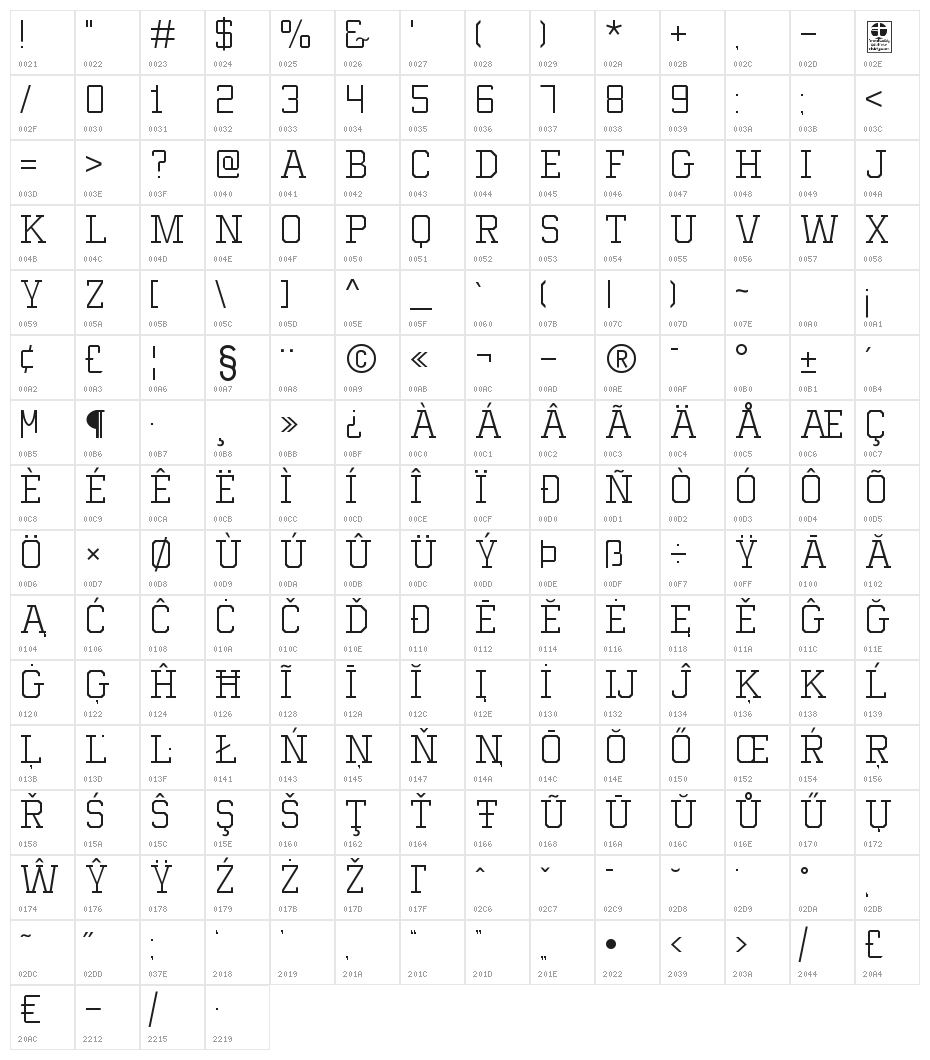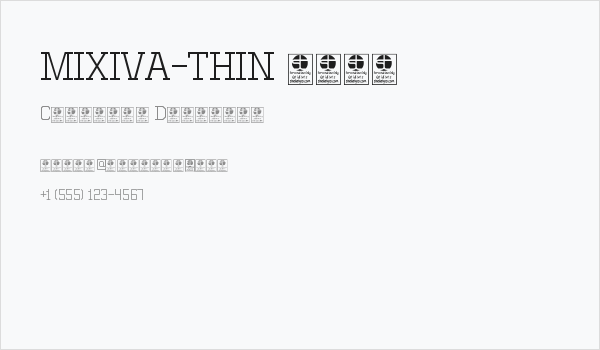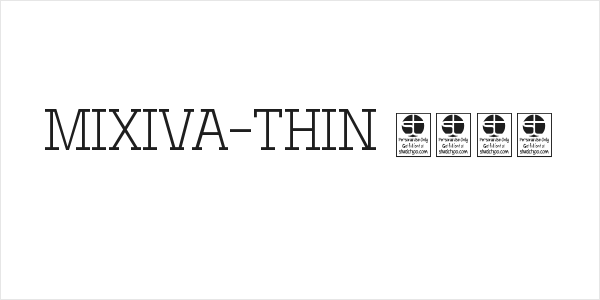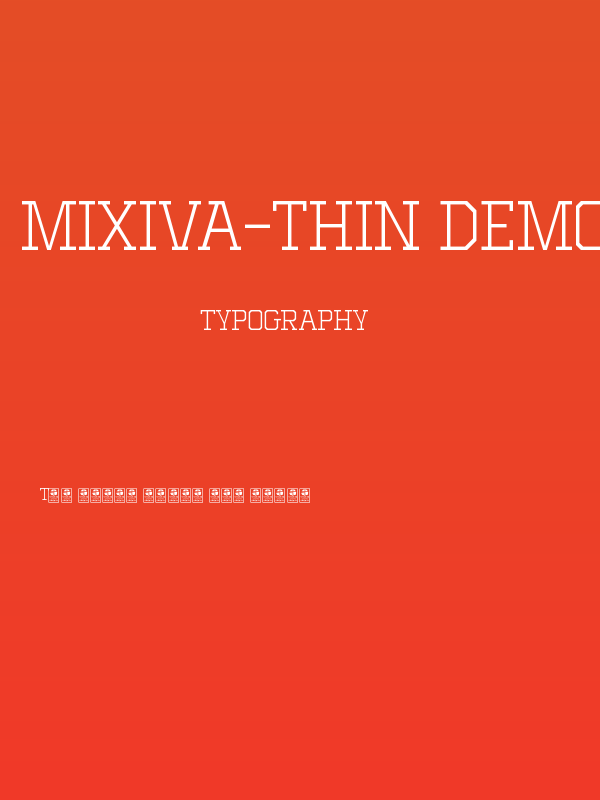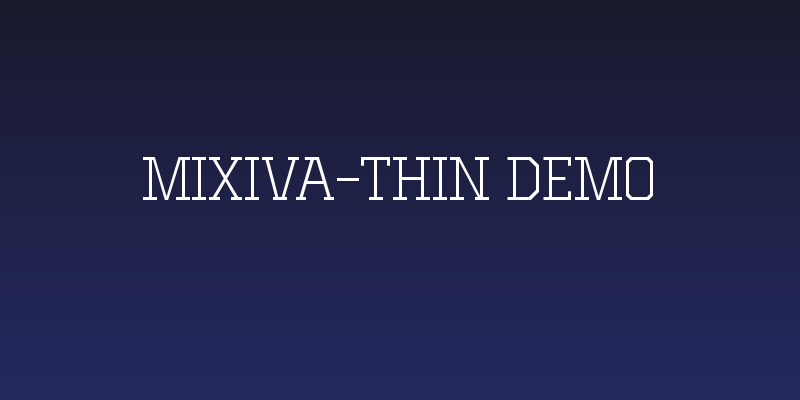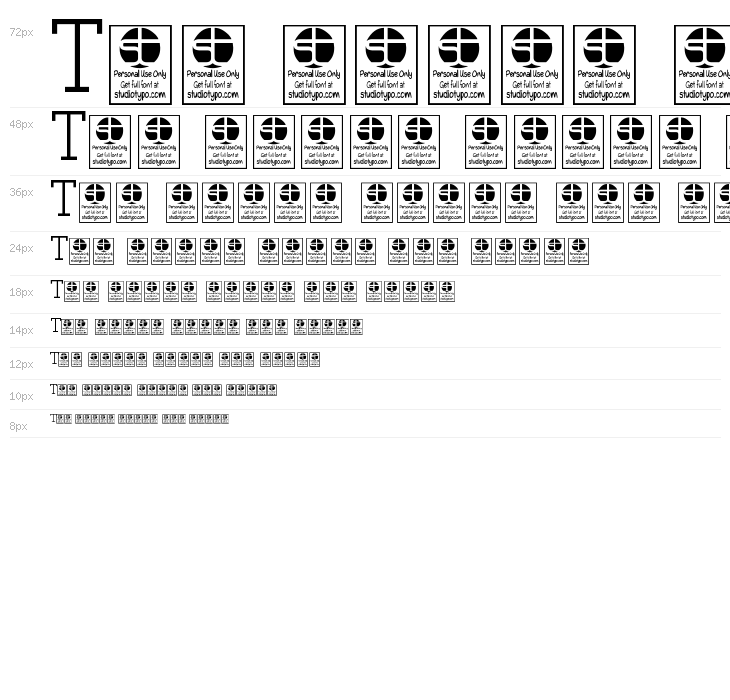
MIXIVA-THIN demo Font
MIXIVA-THIN demo Description
This font features a geometric and modern design with a monospaced style, characterized by its thin lines and uniform stroke width. The uppercase letters are tall and structured, giving a sense of precision and clarity. The numerals and special characters maintain the same geometric consistency, making it ideal for technical or digital-themed projects. The overall appearance is clean and minimalistic, suitable for conveying a contemporary and professional look.
| Use Case | Headlines, Coding, Technical documents |
| Proposed Projects | Ideal for technical documents, coding interfaces, digital displays, and modern branding. |